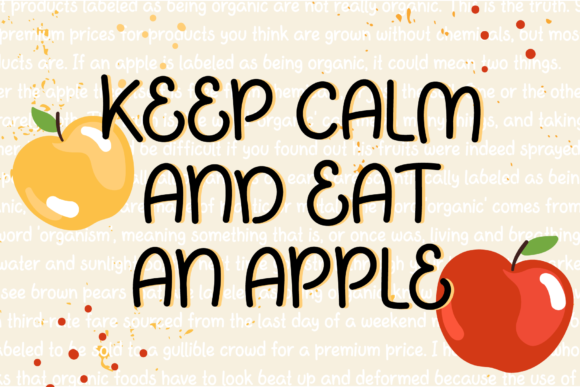
Apple Jam Font
Apple Jam is a sweet and friendly handwritten font. Whether you’re looking for fonts for Instagram or calligraphy scripts for DIY projects, this font will turn any creative idea into a true piece of art!